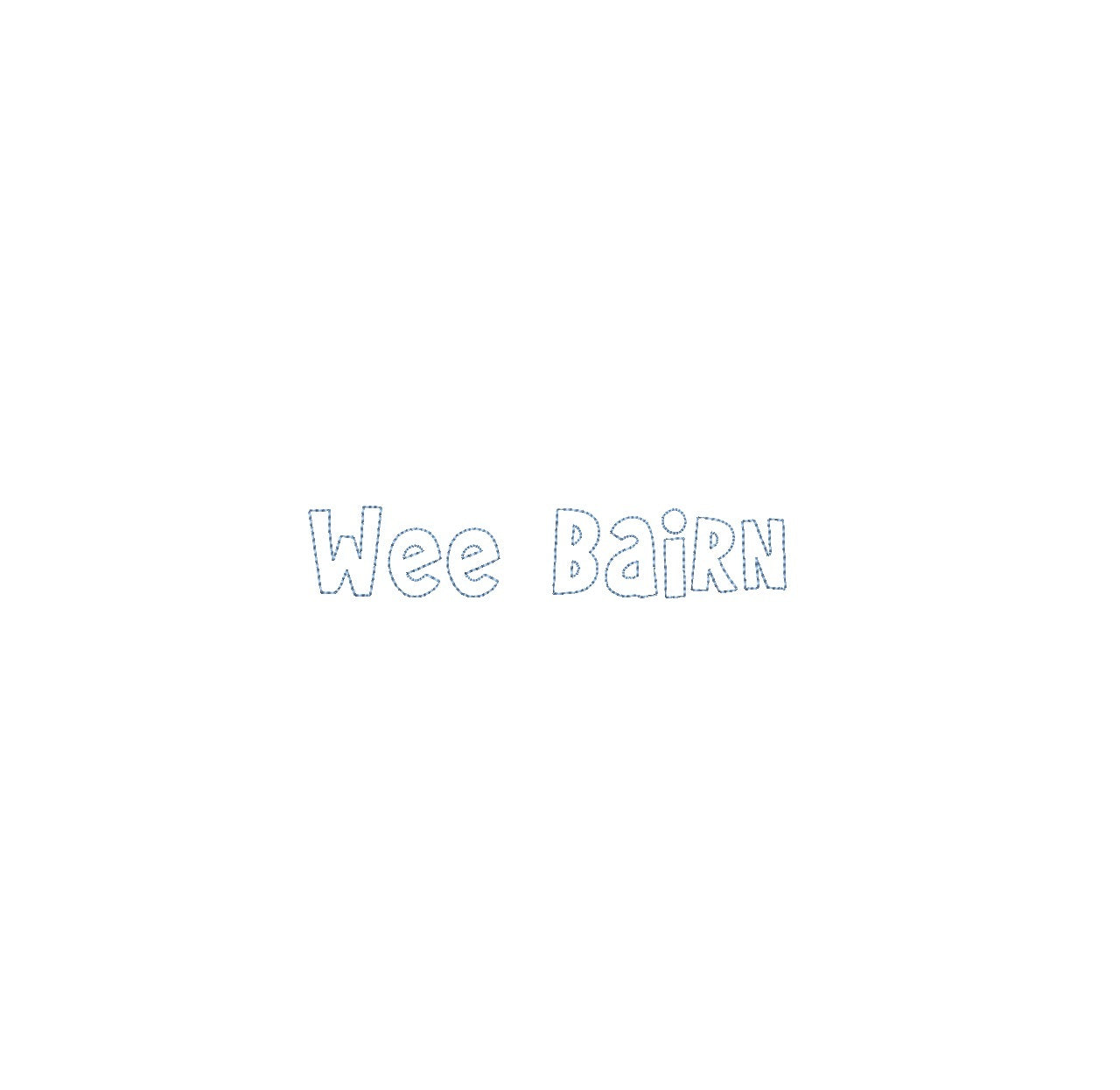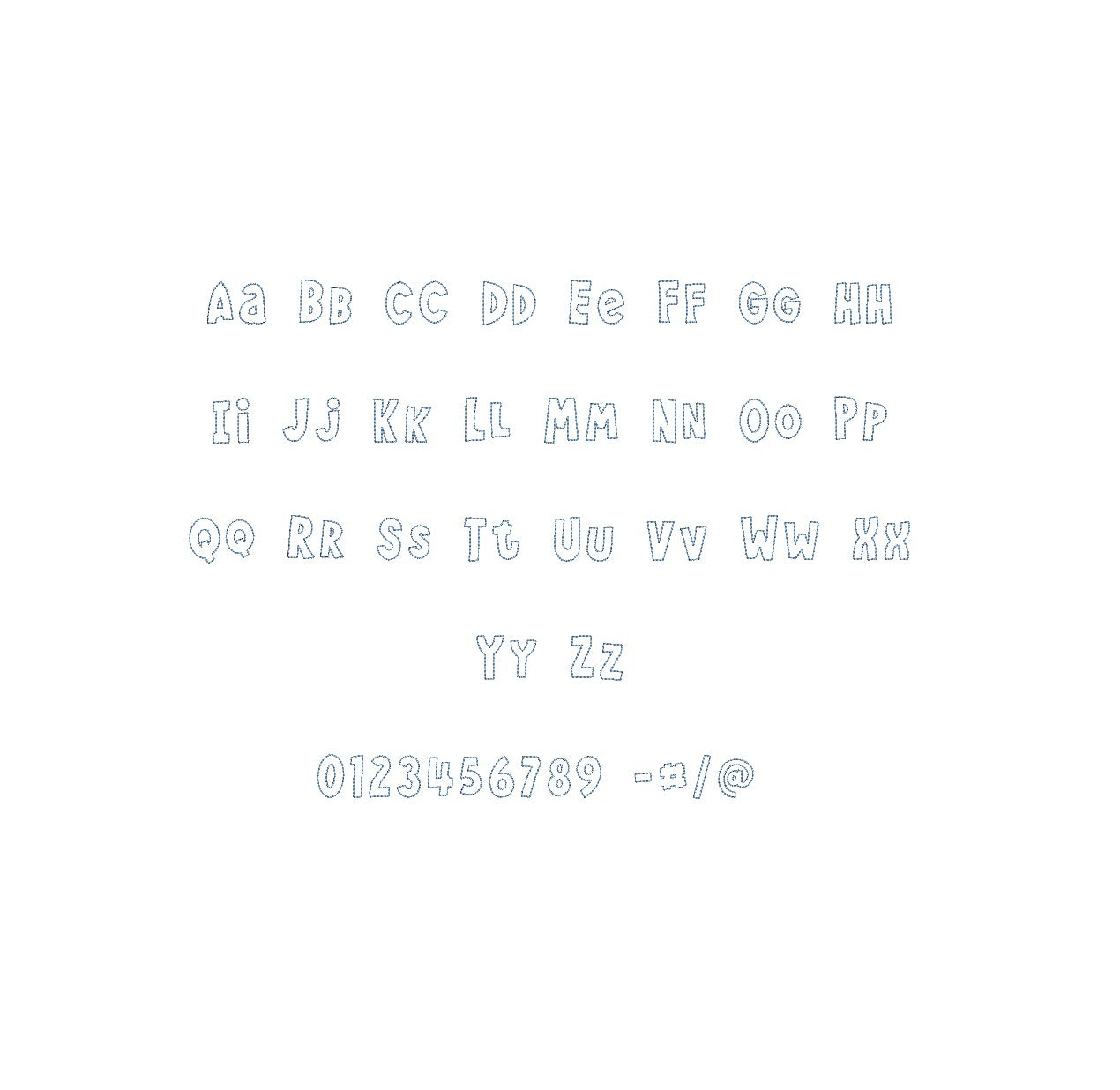
Elevate your embroidery projects with the Wee Bairn Bean Stitch Outline ESA font, designed for compatibility with Wilcom Studio e4.5.6 and Hatch 3 versions and up. This font seamlessly blends endearing charm and precision, infusing your designs with a unique aesthetic perfect for adorable monograms and embellishments. Experience seamless compatibility for exceptional results and unleash a new level of stitching finesse. Transform your creations into embroidery masterpieces that radiate sweetness and creativity. Elevate your projects with the Wee Bairn Bean Stitch Outline ESA font and make your embroidery truly heartwarming and unforgettable.